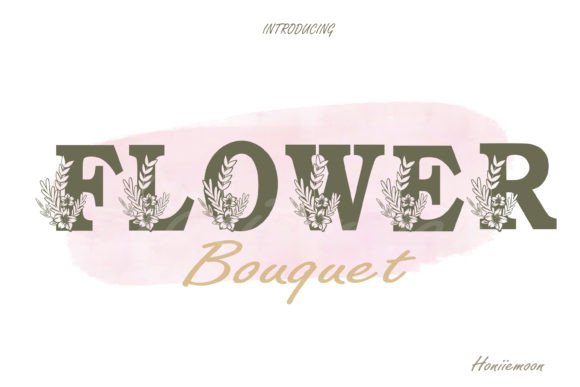
Introducing Flower Bouquet Font - the ultimate choice for adding a touch of whimsy and charm to your creative projects! Created by the talented Honiiemoon, this cool and fun decorative font is here to elevate your designs and make them truly unforgettable.
With its adorable and jolly appearance, Flower Bouquet Font is like a breath of fresh air for your typography needs. Whether you're working on web design, graphic illustrations, or even crafting personalized merchandise, this font is your perfect companion. Its versatility knows no bounds, making it an absolute must-have for both professionals and enthusiasts alike.
Picture your designs blooming with creativity as Flower Bouquet Font effortlessly adds a pop of color and boldness to each element. Let your imagination run wild and watch as this font breathes life into your projects, making them captivating and eye-catching. From playful headlines to charming invitations, this font will leave a lasting impression on your audience.
Best Fonts for Web Design? Look no further than Flower Bouquet Font! Its unique and distinctive style will make your website stand out from the crowd, leaving visitors in awe of your attention to detail. Say goodbye to boring and mundane typography, and let this font be your secret weapon in creating a visually stunning online presence.
But it doesn't stop there! Flower Bouquet Font is not just a pretty face. Behind its decorative exterior lies a powerful tool that is armed with an extensive collection of characters and symbols. With its wide range of options, you can customize and personalize your designs to perfection. Let your creativity flourish as you explore the endless possibilities this font has to offer.